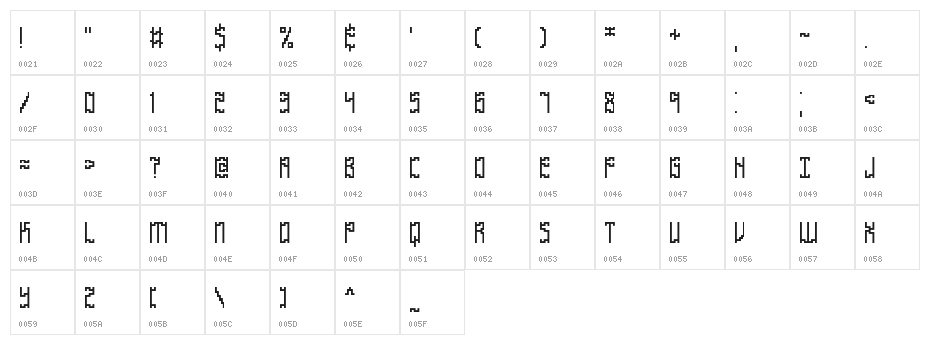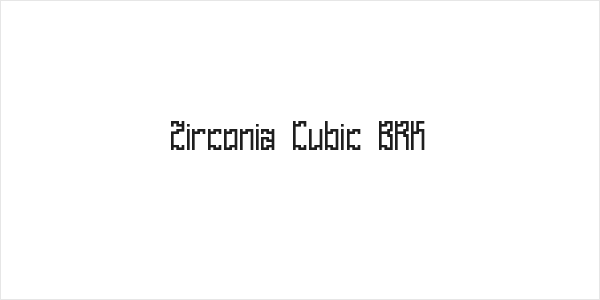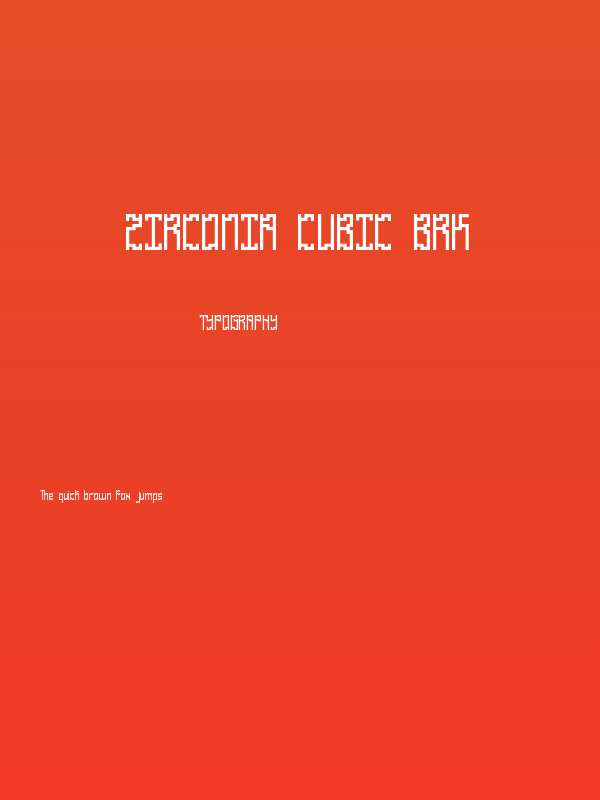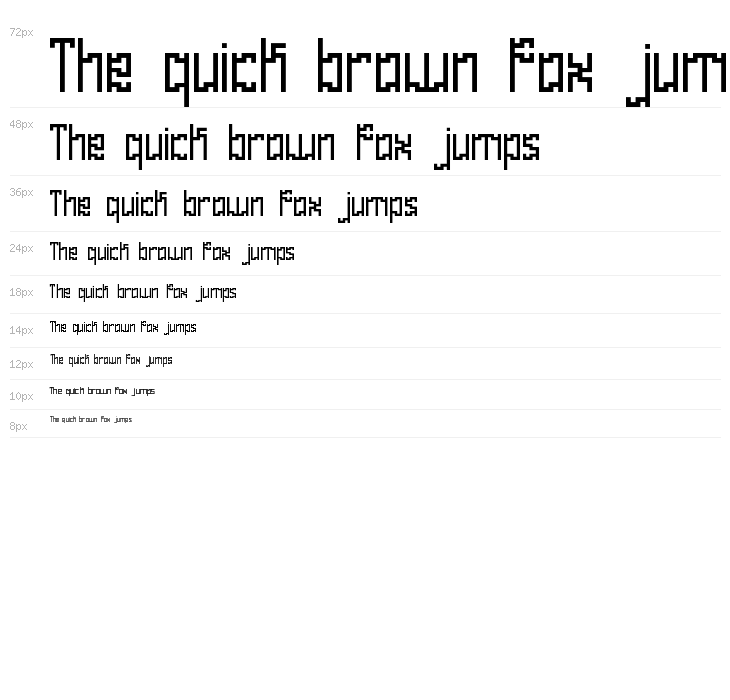
Zirconia Cubic BRK Font
Zirconia Cubic BRK Description
This font features a geometric, pixelated style with a strong emphasis on straight lines and right angles, giving it a distinctly digital or retro video game appearance. The characters are uniformly structured, with consistent height and width, creating a cohesive and orderly look. The uppercase and lowercase letters maintain a similar form, with slight variations to distinguish them. Numbers and special characters follow the same design principles, ensuring visual harmony across all glyphs. The font's blocky nature makes it highly legible at various sizes, though it is best suited for larger displays where its unique style can be fully appreciated.
| Overall Style | Retro, Digital |
| Proposed Projects | Ideal for video game design, digital art projects, retro-themed posters, and tech-related branding. |